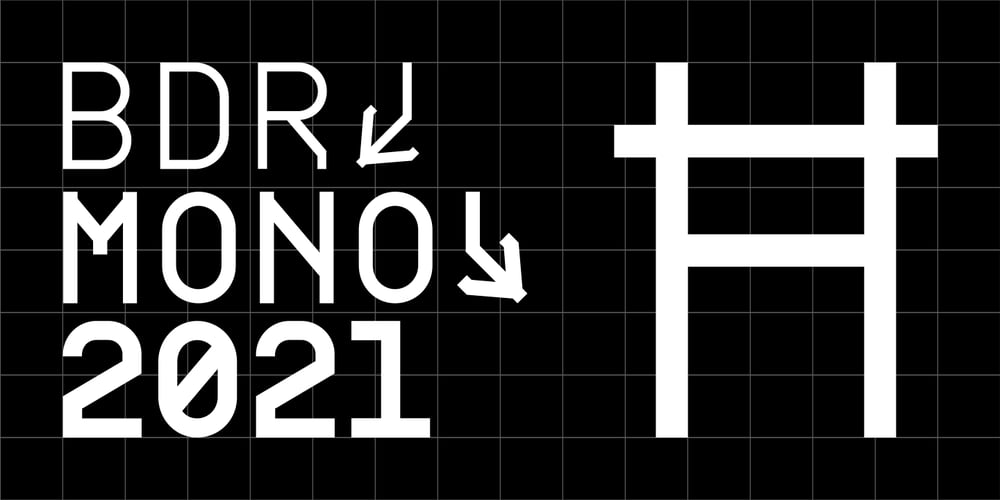
BDRmono 2021 Font Family was designed by Lorenz (Lopetz) Gianfreda and published by Typedifferent. BDRmono 2021 contains 5 styles and family package options. Büro Destruct’s «BDR mono» typeface has a long tradition in the font library of typedifferent. Initially designed by Lopetz as a single weight, monospaced Mac PostScript Type 1 font way back in 1999, it got a first update as a little family with light, regular and bold weights, plus an extended glyphs set in Opentype format during 2006. With this 2021 update the typeface received a second rounded family and a complete glyphs set with all needed characters used in the north, east, south and west of Europe.The «BDR mono 2021» serves great in signage, routing people, architecture, technical plans, manuals, or even science and fiction related communications.